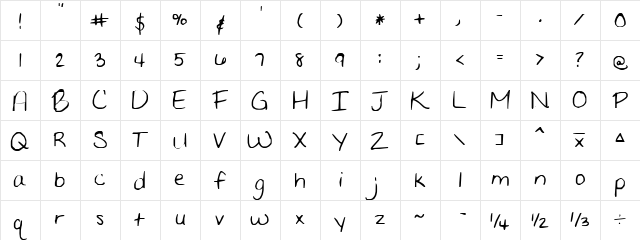
FG Amyie Regular
| Designer | Amyie fonted by Font Garden |
FG Amyie takes a measured approach to typography — its balanced proportions and neutral character make it a reliable workhorse for both digital and print work.